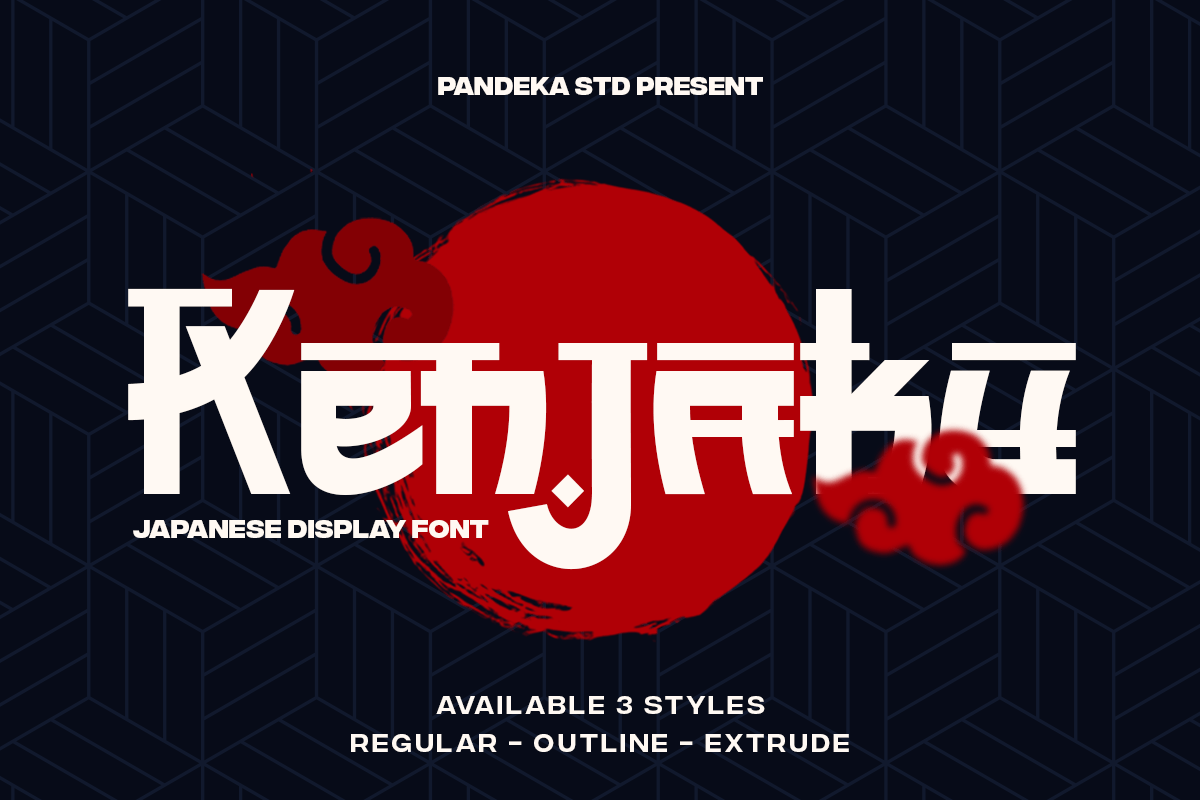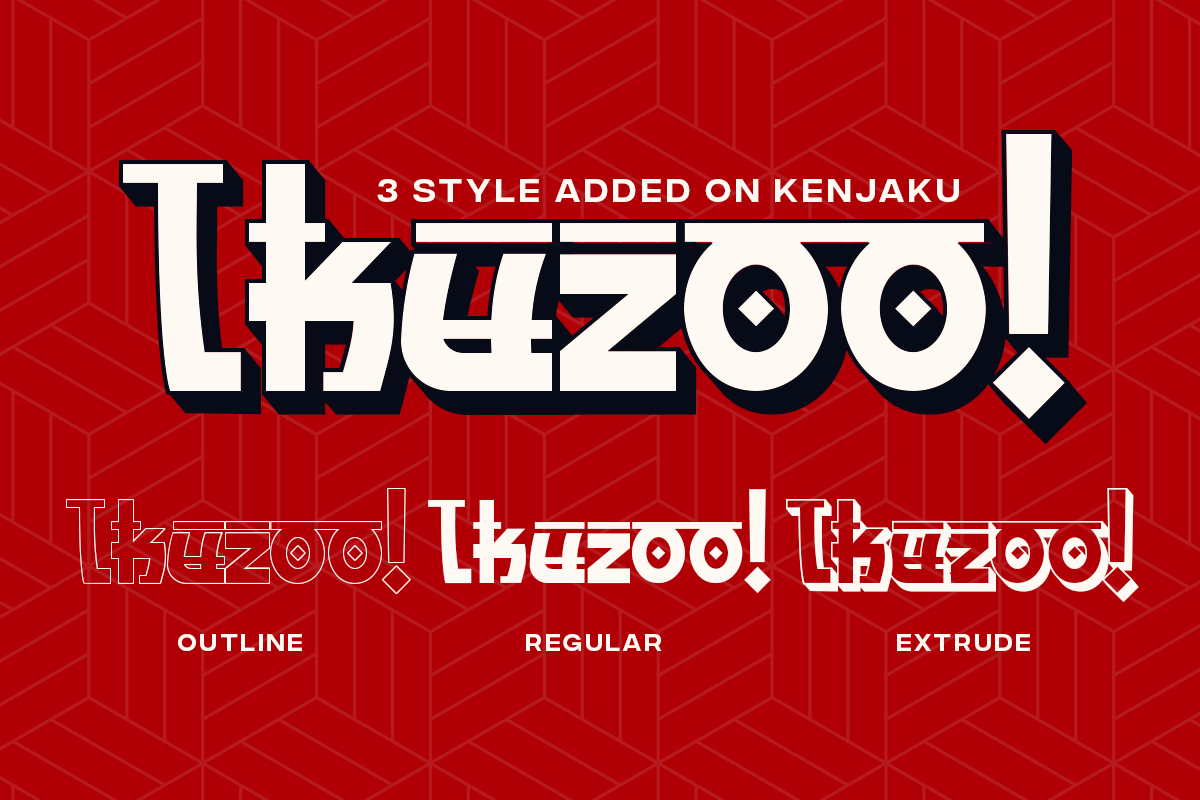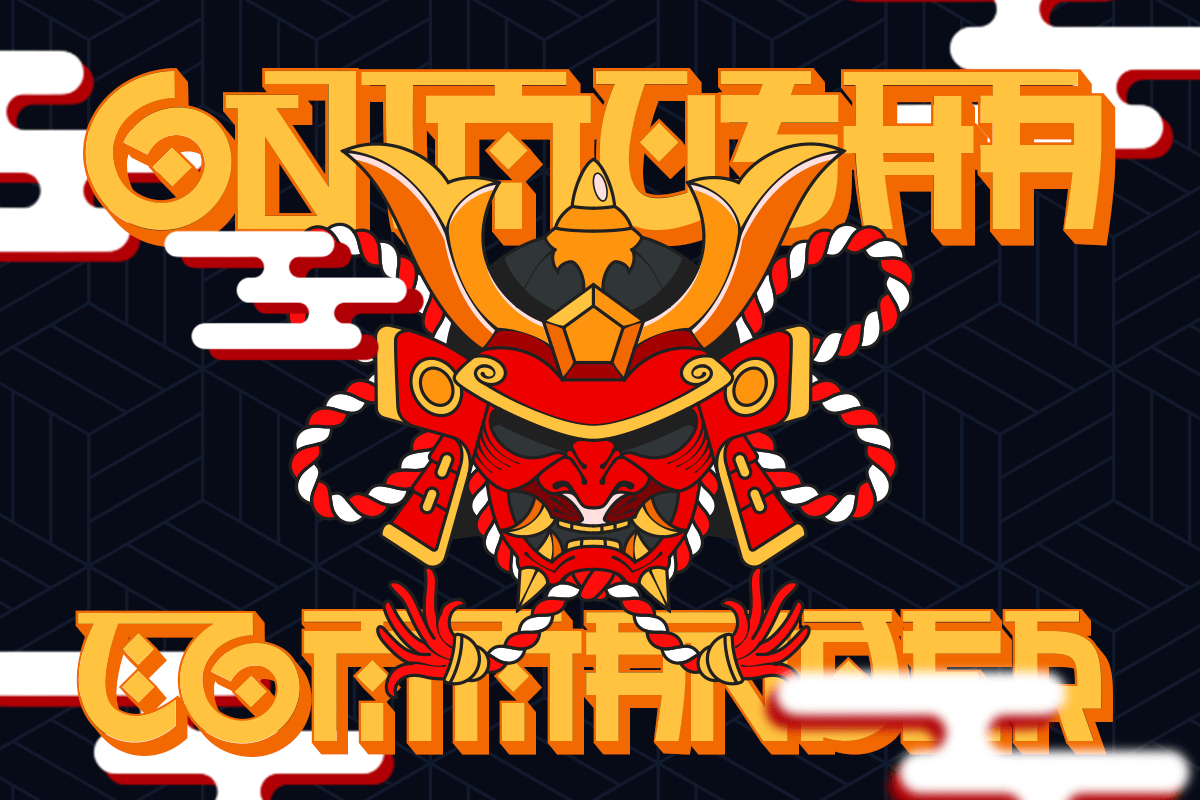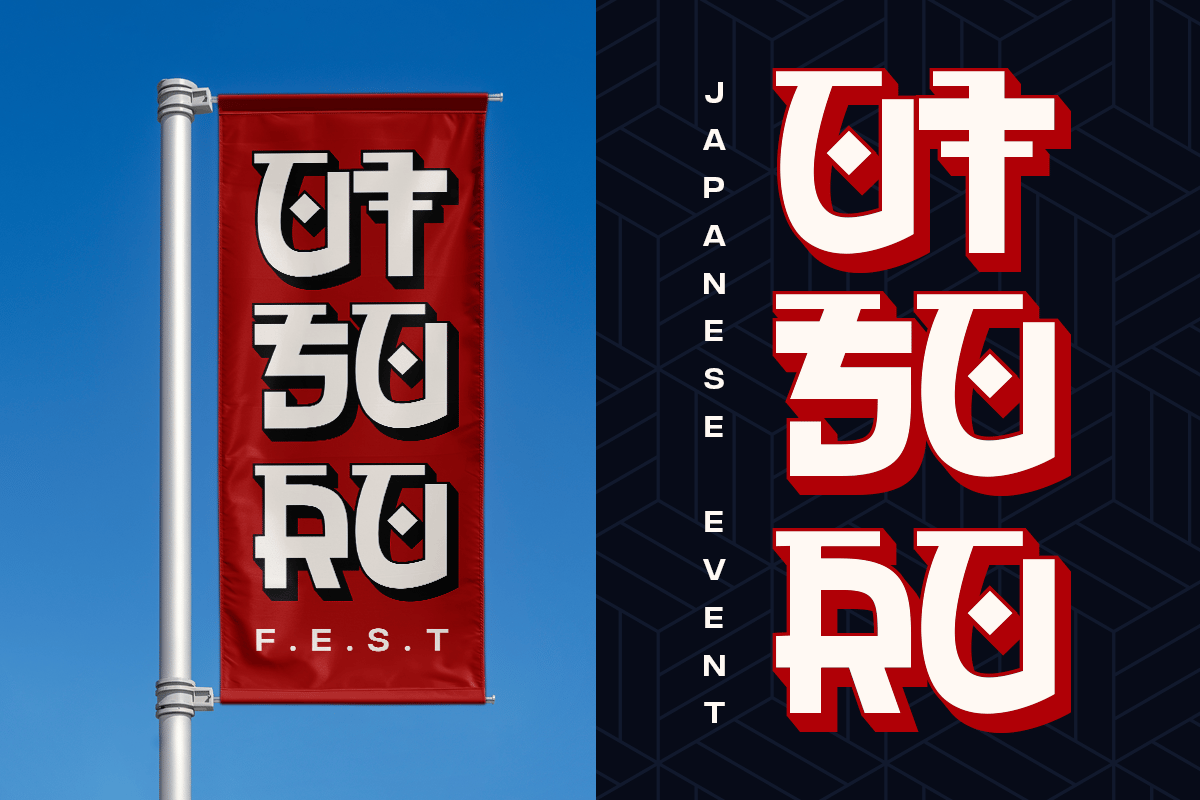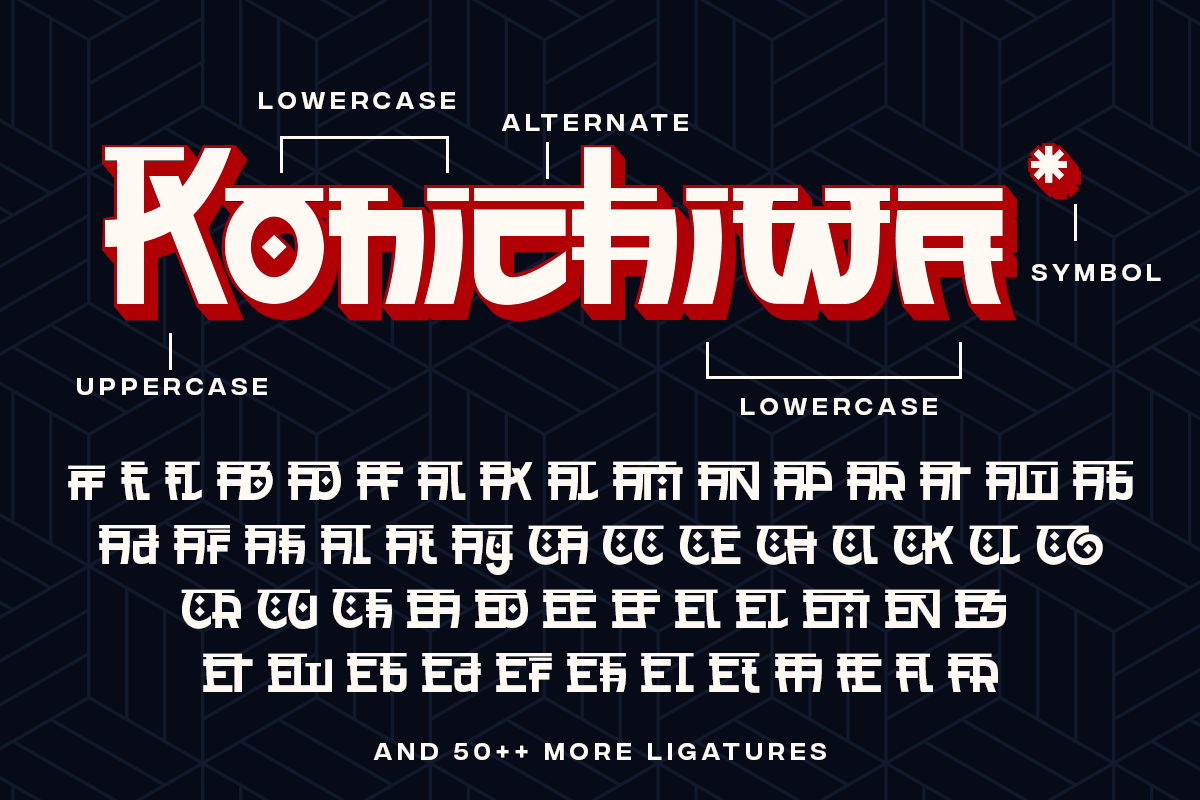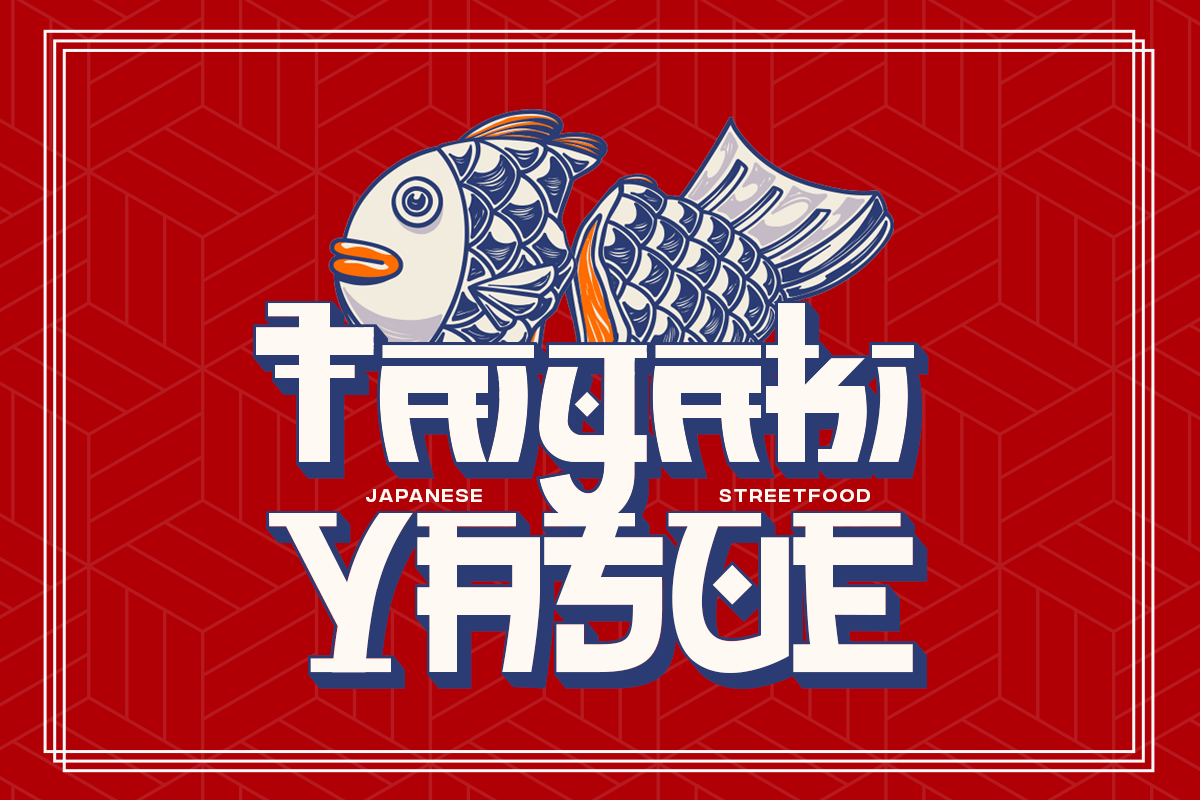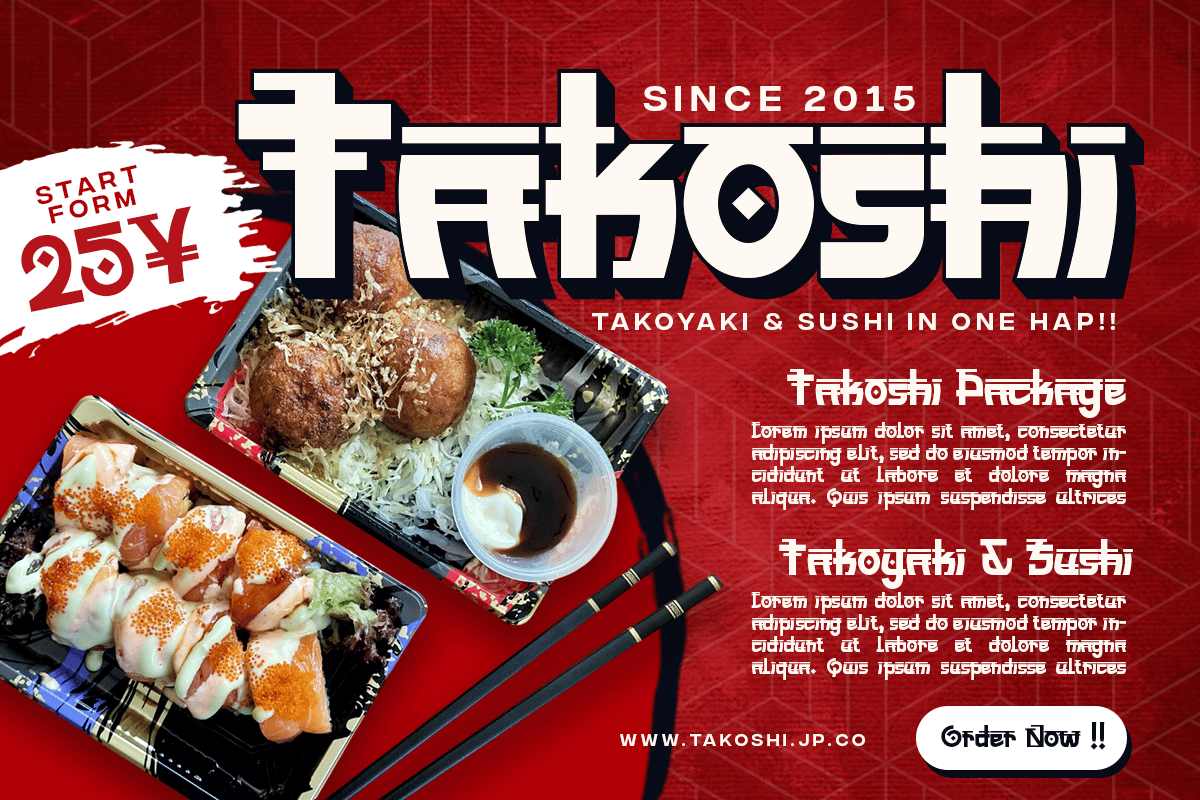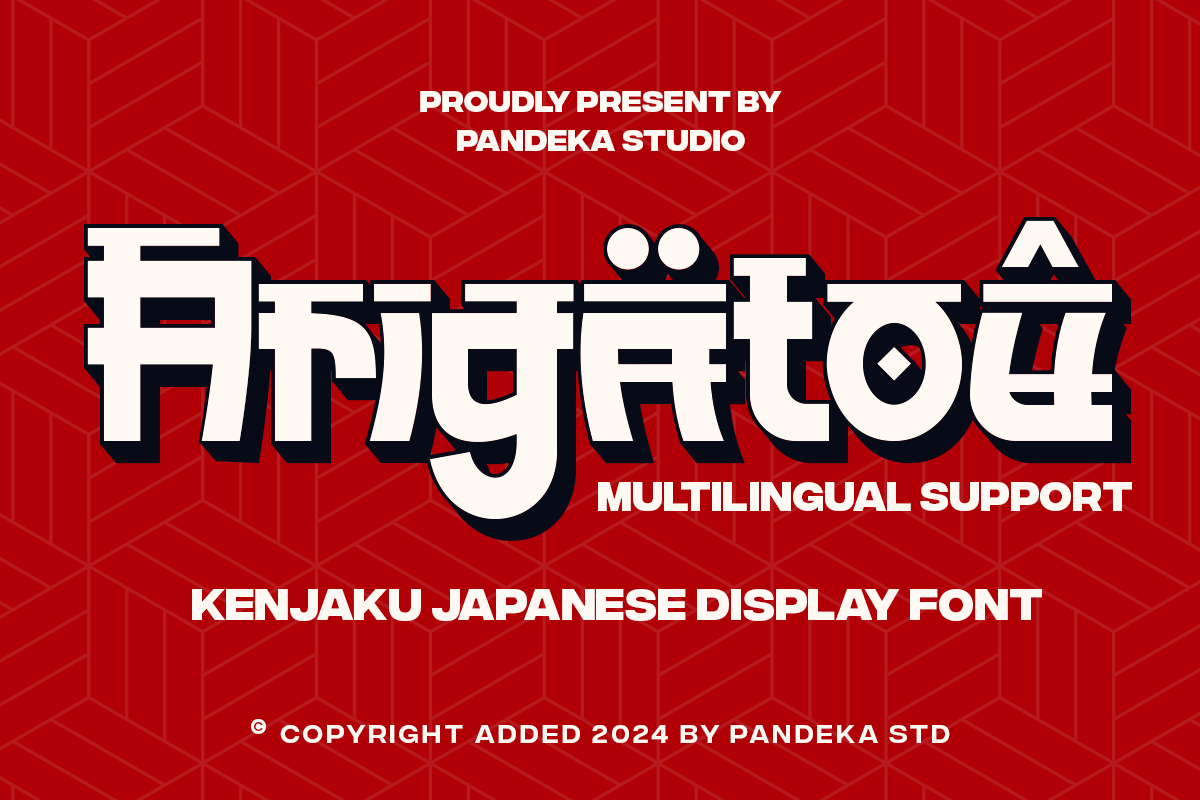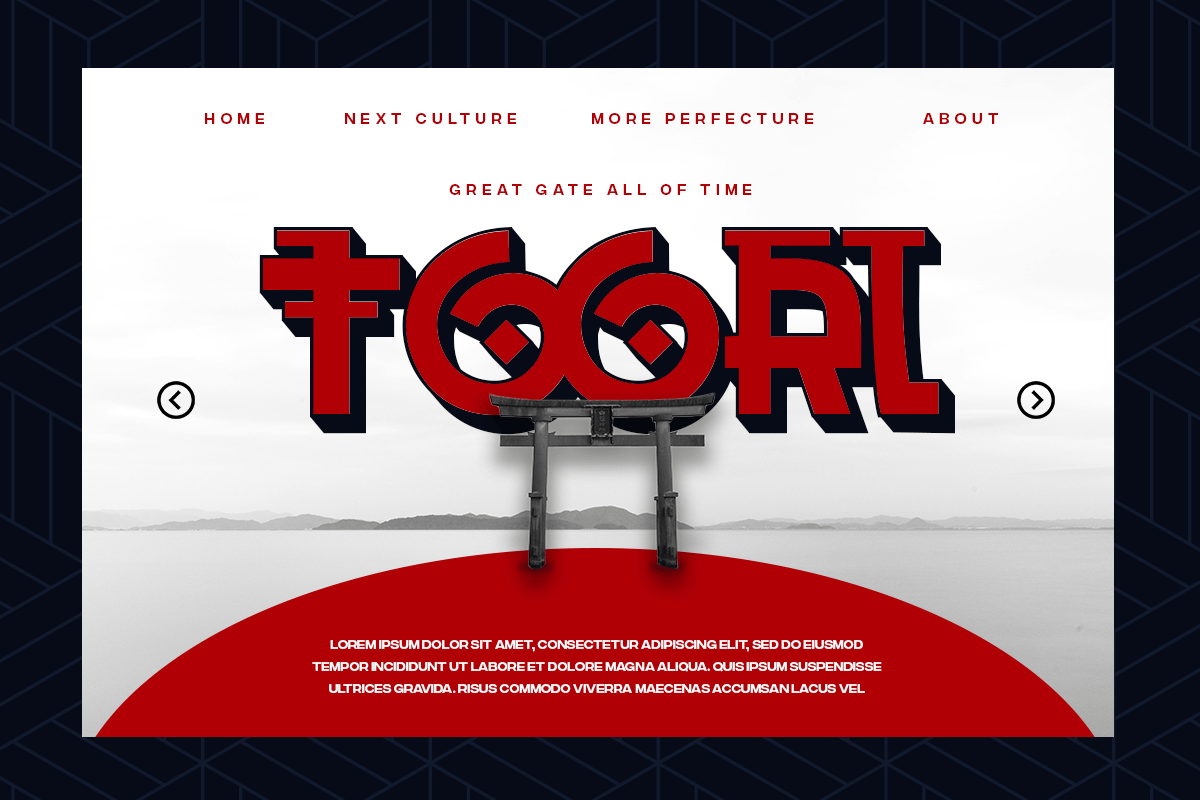
Kenjaku – Japanese Asian Font
Konnichiwa and Annyeonghaseyo!
Bring your designs to life with Kenjaku, a display font inspired by modern Japanese and Korean lettering. Featuring 3 styles – Regular, Extrude, and Outline, along with 50+ unique ligatures and alternates, Kenjaku allows endless creativity to make your designs stand out. Its bold yet elegant design blends tradition with a contemporary touch, making it perfect for logotypes, posters, branding, banners, and more.
- 3 Styles: Regular, Extrude, and Outline
- 50+ unique Ligatures and Alternates
- Full Character Set: Uppercase, lowercase, numbers, symbols, and punctuation
Language Support: Danish, English, Estonian, Filipino, Finnish, French, Friulian, Galician, German, Gusii, Indonesian, Irish, Italian, Luxembourgish, Norwegian Bokmål, Norwegian Nynorsk, Nyankole, Oromo, Portuguese, Romansh, Rombo, Spanish, Swedish, Swiss-German, Uzbek (Latin)